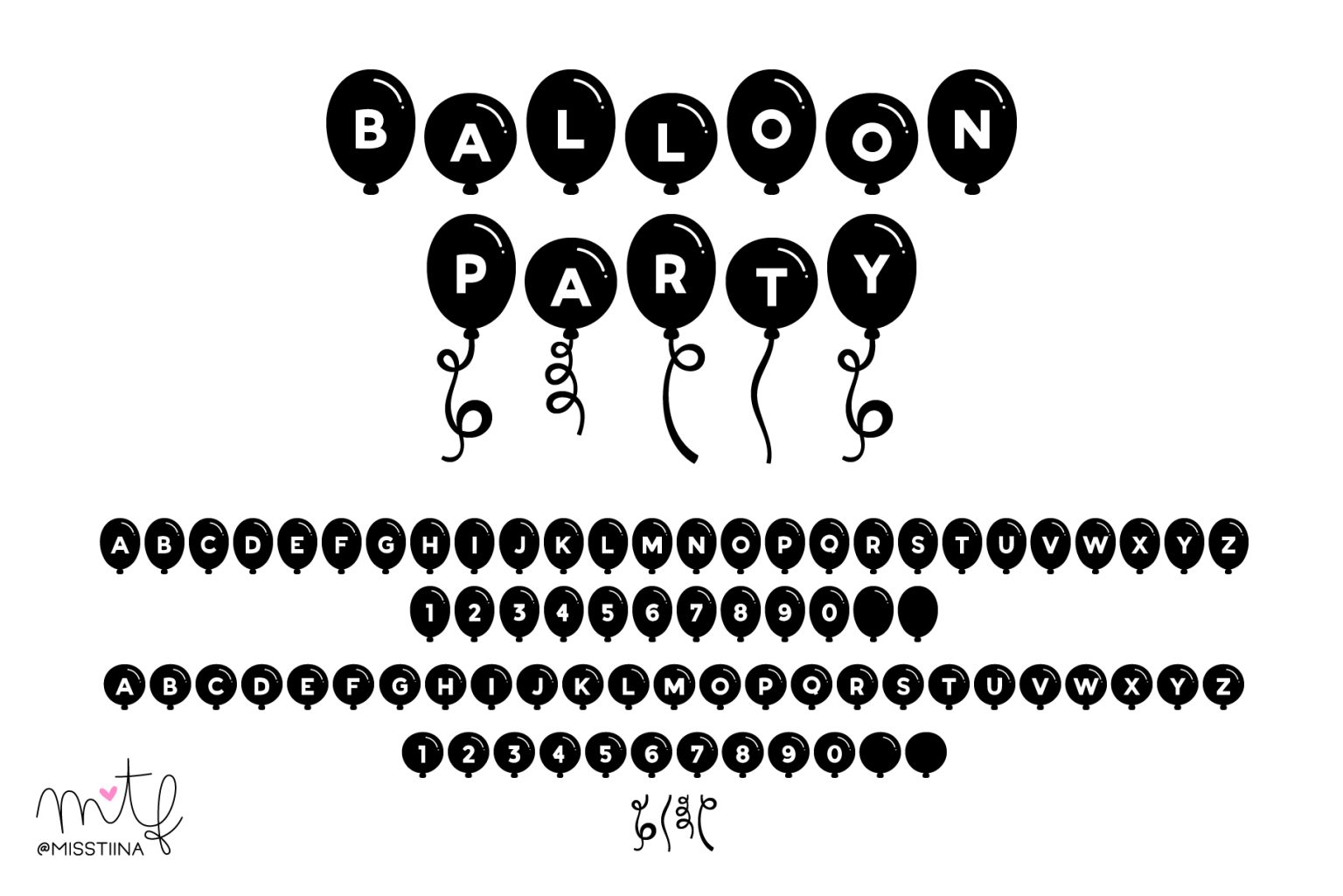
Balloon Party Regular Font . Click to find the best 170 free fonts in the balloon style. We have 2 free balloon, party, regular fonts to offer for direct downloading · 1001 fonts is your favorite site for free fonts since 2001. Perfect for party invitations, kid's events or any jovial occasion! Experience the fun and whimsy of our free balloon fonts. ️ customize your own preview on ffonts.net to make sure it`s. Click now to create a custom image with your own words that you can download. 139 035 téléchargements (79 hier) gratuit pour un usage personnel. Free download of balloon party font. This playful and whimsical font features characters enclosed in. The balloon party font contains 343 beautifully designed characters. Every font is free to download!
️ customize your own preview on ffonts.net to make sure it`s. This playful and whimsical font features characters enclosed in. Every font is free to download! Free download of balloon party font. 139 035 téléchargements (79 hier) gratuit pour un usage personnel. Perfect for party invitations, kid's events or any jovial occasion! The balloon party font contains 343 beautifully designed characters. We have 2 free balloon, party, regular fonts to offer for direct downloading · 1001 fonts is your favorite site for free fonts since 2001. Click to find the best 170 free fonts in the balloon style. Click now to create a custom image with your own words that you can download.
Balloon Party Regular Font We have 2 free balloon, party, regular fonts to offer for direct downloading · 1001 fonts is your favorite site for free fonts since 2001. This playful and whimsical font features characters enclosed in. We have 2 free balloon, party, regular fonts to offer for direct downloading · 1001 fonts is your favorite site for free fonts since 2001. 139 035 téléchargements (79 hier) gratuit pour un usage personnel. Every font is free to download! ️ customize your own preview on ffonts.net to make sure it`s. Click to find the best 170 free fonts in the balloon style. Free download of balloon party font. Click now to create a custom image with your own words that you can download. Experience the fun and whimsy of our free balloon fonts. The balloon party font contains 343 beautifully designed characters. Perfect for party invitations, kid's events or any jovial occasion!
Best Balloon Fonts [FREE / Premium] 2021 Hyperpix Balloon Party Regular Font Experience the fun and whimsy of our free balloon fonts. This playful and whimsical font features characters enclosed in. Click to find the best 170 free fonts in the balloon style. Every font is free to download! ️ customize your own preview on ffonts.net to make sure it`s. The balloon party font contains 343 beautifully designed characters. Click now to. Balloon Party Regular Font.
Best Balloon Fonts [FREE / Premium] 2024 Hyperpix Balloon Party Regular Font ️ customize your own preview on ffonts.net to make sure it`s. Experience the fun and whimsy of our free balloon fonts. 139 035 téléchargements (79 hier) gratuit pour un usage personnel. Perfect for party invitations, kid's events or any jovial occasion! Free download of balloon party font. The balloon party font contains 343 beautifully designed characters. Every font is free. Balloon Party Regular Font.
Best Balloon Fonts [FREE / Premium] 2021 Hyperpix Balloon Party Regular Font Perfect for party invitations, kid's events or any jovial occasion! ️ customize your own preview on ffonts.net to make sure it`s. 139 035 téléchargements (79 hier) gratuit pour un usage personnel. The balloon party font contains 343 beautifully designed characters. Click to find the best 170 free fonts in the balloon style. We have 2 free balloon, party, regular fonts. Balloon Party Regular Font.
Party Balloons Font · 1001 Fonts Balloon Party Regular Font Perfect for party invitations, kid's events or any jovial occasion! Every font is free to download! We have 2 free balloon, party, regular fonts to offer for direct downloading · 1001 fonts is your favorite site for free fonts since 2001. This playful and whimsical font features characters enclosed in. Experience the fun and whimsy of our free balloon fonts.. Balloon Party Regular Font.
Birthday Balloons Font Birthday Party Font Instant Download Balloon Party Regular Font We have 2 free balloon, party, regular fonts to offer for direct downloading · 1001 fonts is your favorite site for free fonts since 2001. This playful and whimsical font features characters enclosed in. Click to find the best 170 free fonts in the balloon style. 139 035 téléchargements (79 hier) gratuit pour un usage personnel. Perfect for party invitations,. Balloon Party Regular Font.
Best Balloon Fonts [FREE / Premium] 2021 Hyperpix Balloon Party Regular Font Free download of balloon party font. Click now to create a custom image with your own words that you can download. Perfect for party invitations, kid's events or any jovial occasion! We have 2 free balloon, party, regular fonts to offer for direct downloading · 1001 fonts is your favorite site for free fonts since 2001. The balloon party font. Balloon Party Regular Font.
Best Balloon Fonts [FREE / Premium] 2021 Hyperpix Balloon Party Regular Font Every font is free to download! ️ customize your own preview on ffonts.net to make sure it`s. Perfect for party invitations, kid's events or any jovial occasion! Experience the fun and whimsy of our free balloon fonts. 139 035 téléchargements (79 hier) gratuit pour un usage personnel. This playful and whimsical font features characters enclosed in. We have 2 free. Balloon Party Regular Font.
Balloon Party Regular Download for free at Free Fonts Balloon Party Regular Font Every font is free to download! 139 035 téléchargements (79 hier) gratuit pour un usage personnel. Experience the fun and whimsy of our free balloon fonts. Click now to create a custom image with your own words that you can download. Click to find the best 170 free fonts in the balloon style. ️ customize your own preview on ffonts.net. Balloon Party Regular Font.
Balloons Font Party OpenType Alphabet Balloon Party Regular Font Click now to create a custom image with your own words that you can download. We have 2 free balloon, party, regular fonts to offer for direct downloading · 1001 fonts is your favorite site for free fonts since 2001. This playful and whimsical font features characters enclosed in. Free download of balloon party font. The balloon party font contains. Balloon Party Regular Font.